Finding the perfect typography is the most essential step in setting the romantic tone for any marriage celebration. This curated selection of Wedding Fonts is designed to save you hours of searching, offering professional tools that bring elegance, personality, and a cohesive aesthetic to your bridal stationery and decor.
1. Wedding Display Font
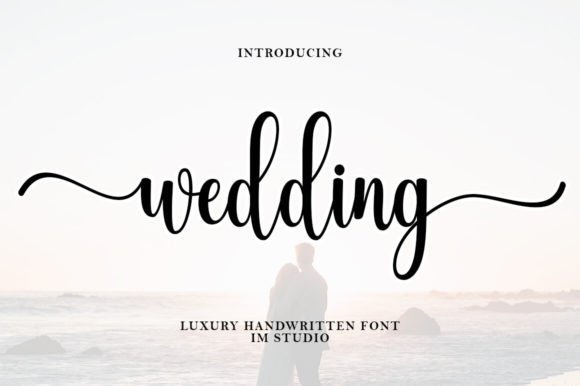
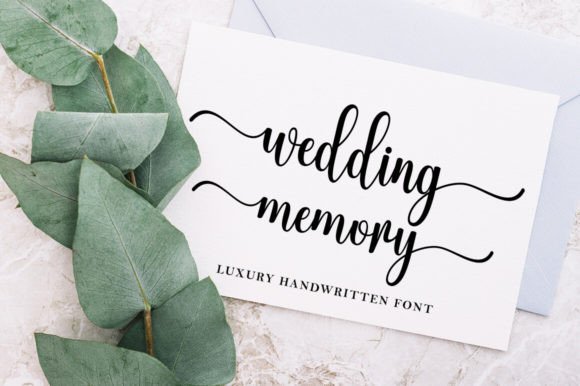
I’m completely charmed by the delicate balance of elegance and romance found in this Wedding font. Its graceful, sweeping curves and polished finish make it an absolute essential for luxury invitations, place cards, or sentimental signage. When searching for Wedding Fonts that evoke a sense of high-end sophistication, this typeface is a perfect choice to ensure your special day’s stationery looks truly timeless.
2. The Wedding Signature Font
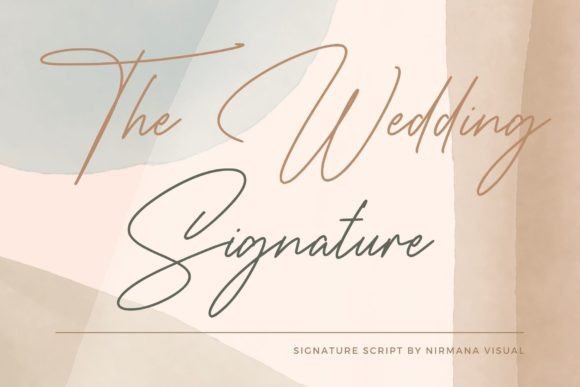
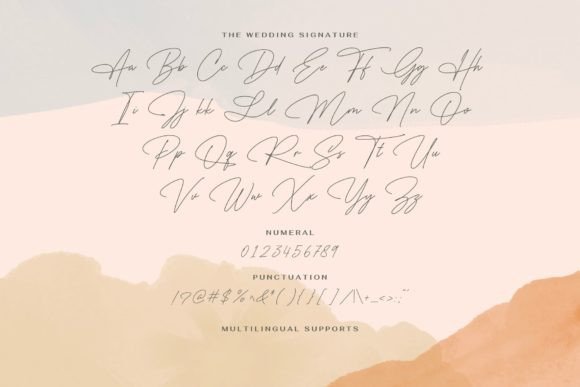
I’m absolutely in love with the effortless, fluid motion of The Wedding Signature. This font captures the intimacy of a handwritten note, making it a stellar choice for personalized thank-you cards, elegant envelopes, or chic wedding logos. If you need Wedding Fonts that feel both modern and deeply personal, this signature style adds a touch of authentic human warmth that mechanical typefaces simply cannot replicate.
3. Rustic Wedding Font
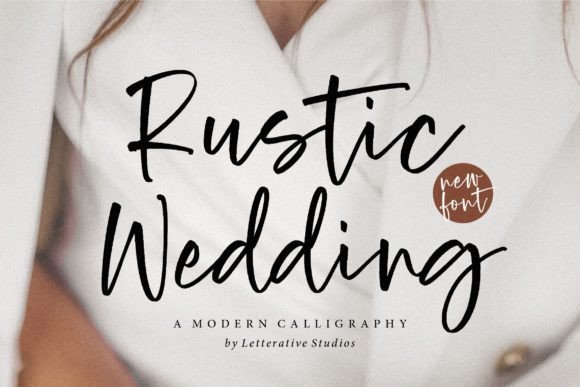
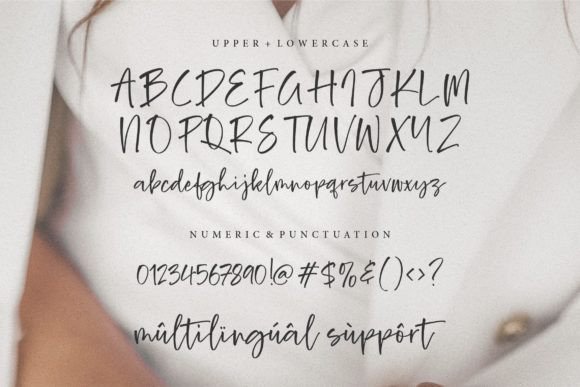
I’m really impressed by the organic and earthy vibe of Rustic Wedding. It perfectly captures that popular farmhouse aesthetic, making it a brilliant fit for outdoor ceremony programs, wooden signage, or botanical-themed invites. If you are looking for Wedding Fonts that feel relaxed yet stylish, this typeface offers a wonderful blend of natural textures and professional design to make your big day feel uniquely cozy.
4. Wedding Vintage Font
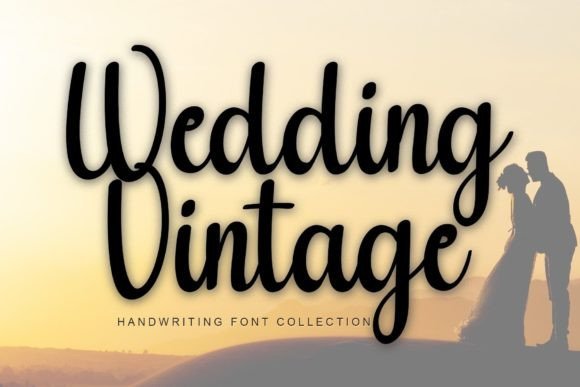
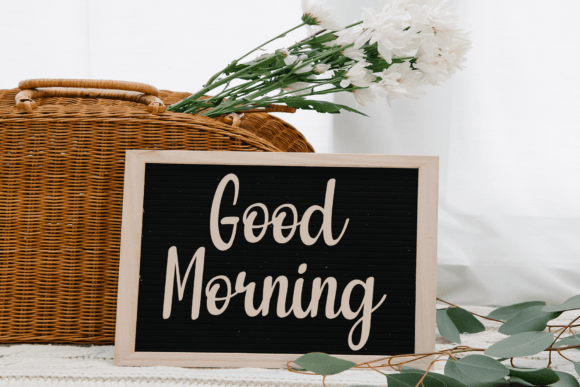
I’m truly fascinated by the intricate details and nostalgic beauty of Wedding Vintage. This typeface brings a sense of historical grandeur to any layout, making it a magnificent option for Victorian-style invites, heritage-inspired decor, or classic certificates. When you need Wedding Fonts that carry a weight of tradition and exquisite craftsmanship, this font provides a sophisticated, old-world charm that is simply unforgettable.
5. Olivia Wedding Font
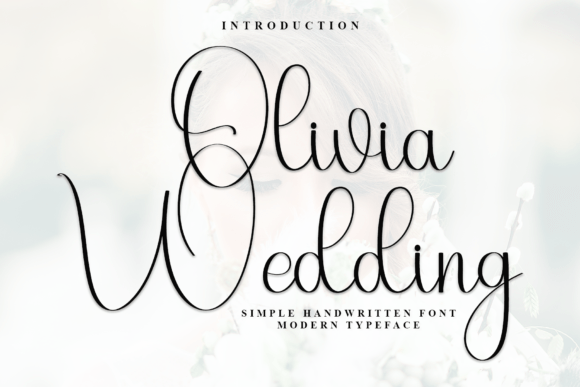
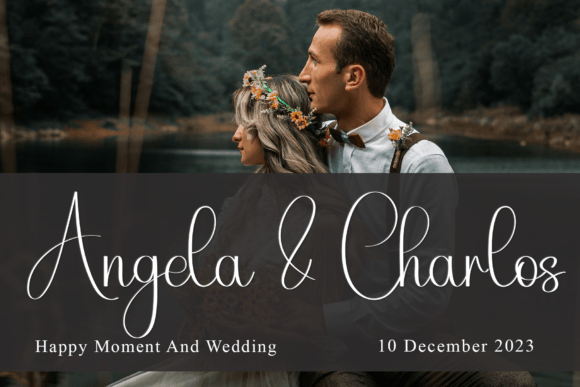
I’m really captivated by the smooth, rhythmic flow and the dreamy atmosphere of Olivia Wedding. It strikes a perfect balance between modern calligraphy and classic romance, which is ideal for high-end bridal branding, guest menus, or elegant social media announcements. If you are scouting for Wedding Fonts that offer a sleek yet whimsical touch, this typeface will definitely make your creative layouts stand out with effortless grace.
6. Wedding Bride Font
I’m genuinely enchanted by the airy and sophisticated lines of Wedding Bride. This typeface radiates a soft, ethereal beauty that works perfectly for bridal shower invitations, delicate photography watermarks, or romantic poetry layouts. If you are searching for Wedding Fonts that feel light, modern, and exceptionally feminine, this font is a must-have tool to create a visual atmosphere that is as breathtaking as a walk down the aisle.
7. Heart Wedding Font
I’m really impressed by how Heart Wedding seamlessly integrates romantic symbols directly into its elegant swashes. It’s a fantastic choice for couples who want their names to literally be joined by love, making it perfect for custom logos, save-the-dates, or cake toppers. When you need Wedding Fonts that offer built-in decorative elements and a sweet, cohesive look, this charming typeface is a brilliant creative asset.
8. The Wedding Signature Font
I’m absolutely struck by the clean, rhythmic flow of this second edition of The Wedding Signature. Its minimalist yet sophisticated strokes make it a versatile powerhouse for high-end stationery, digital invites, and elegant guest books. If you are looking for Wedding Fonts that provide a modern, professional edge while keeping a delicate handwritten feel, this typeface is a superb choice for adding a touch of class to your designs.
9. Wedding Font
I’m truly impressed by the timeless and sturdy elegance of this specific Wedding typeface. Its balanced proportions and clean lines make it a versatile workhorse for everything from bold ceremony headers to subtle fine-print details on programs. If your project demands Wedding Fonts that offer a high level of readability without sacrificing that essential romantic flair, this professional design is an excellent addition to your creative toolkit.
10. Wedding Flowers Font
I’m absolutely enchanted by the delicate botanical ornaments integrated into Wedding Flowers. This font is a dream for garden-themed celebrations, floral shop branding, or romantic stationery that needs a touch of nature’s beauty. If you are looking for Wedding Fonts that double as illustrative art, this unique typeface offers a stunningly detailed and feminine aesthetic that will make your invitation suites feel like a work of art.